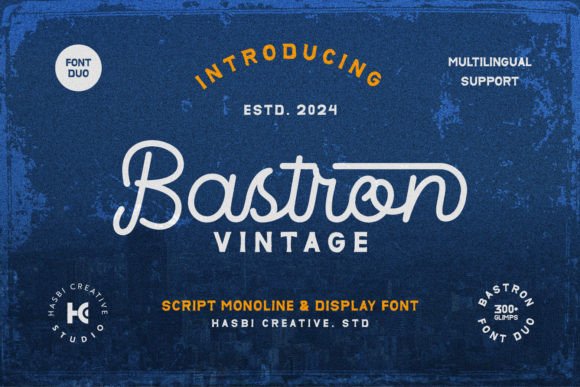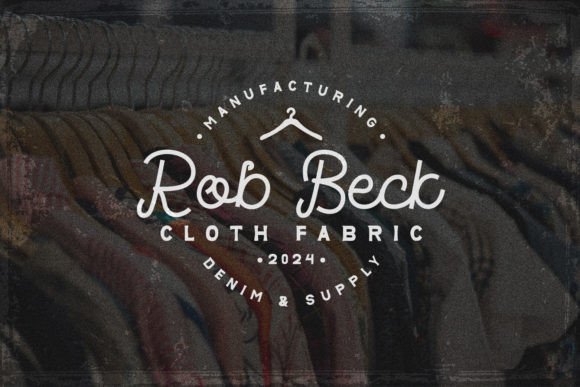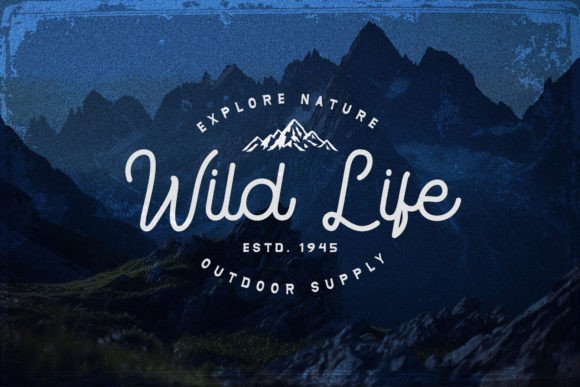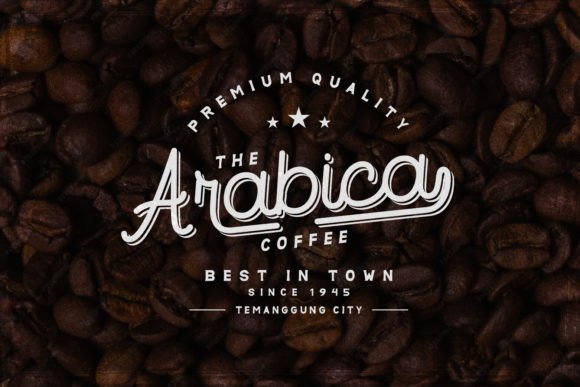
Bastron Vintage Font: Elegant Script for Monogram & Logo Design
About the Bastron Vintage Font
The Bastron Vintage Font offers a perfect balance of form and function for your design needs. Introducing Bastron Vintage, a monoline script font that is perfect for adding a touch of elegance and sophistication to your designs. With its smooth lines and delicate curves, Bastron – Script Monoline is perfect for logos, branding, wedding invitations, social media posts, and more.
Bastron Vintage Font Usage Examples
Bastron Vintage Font Example